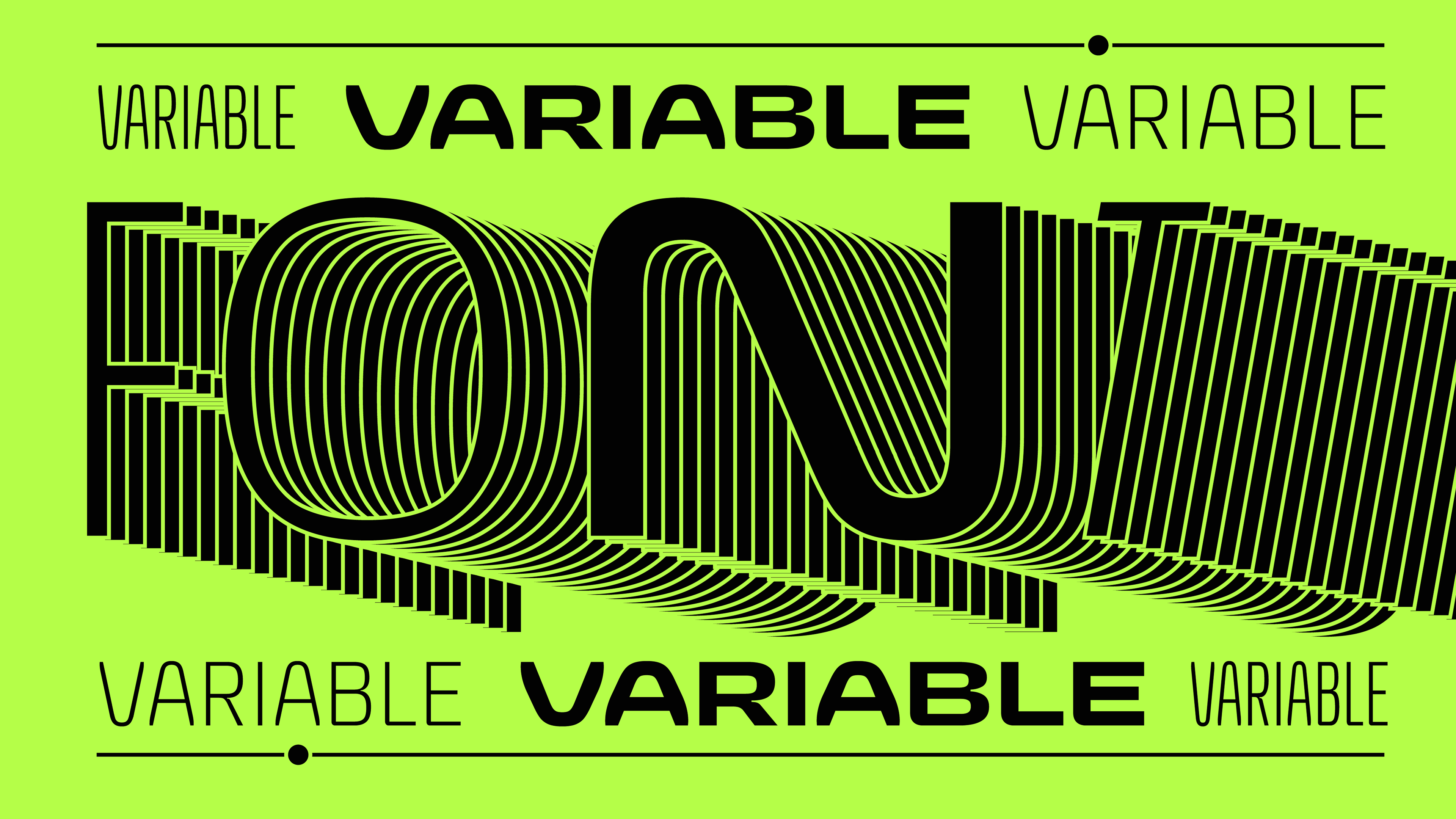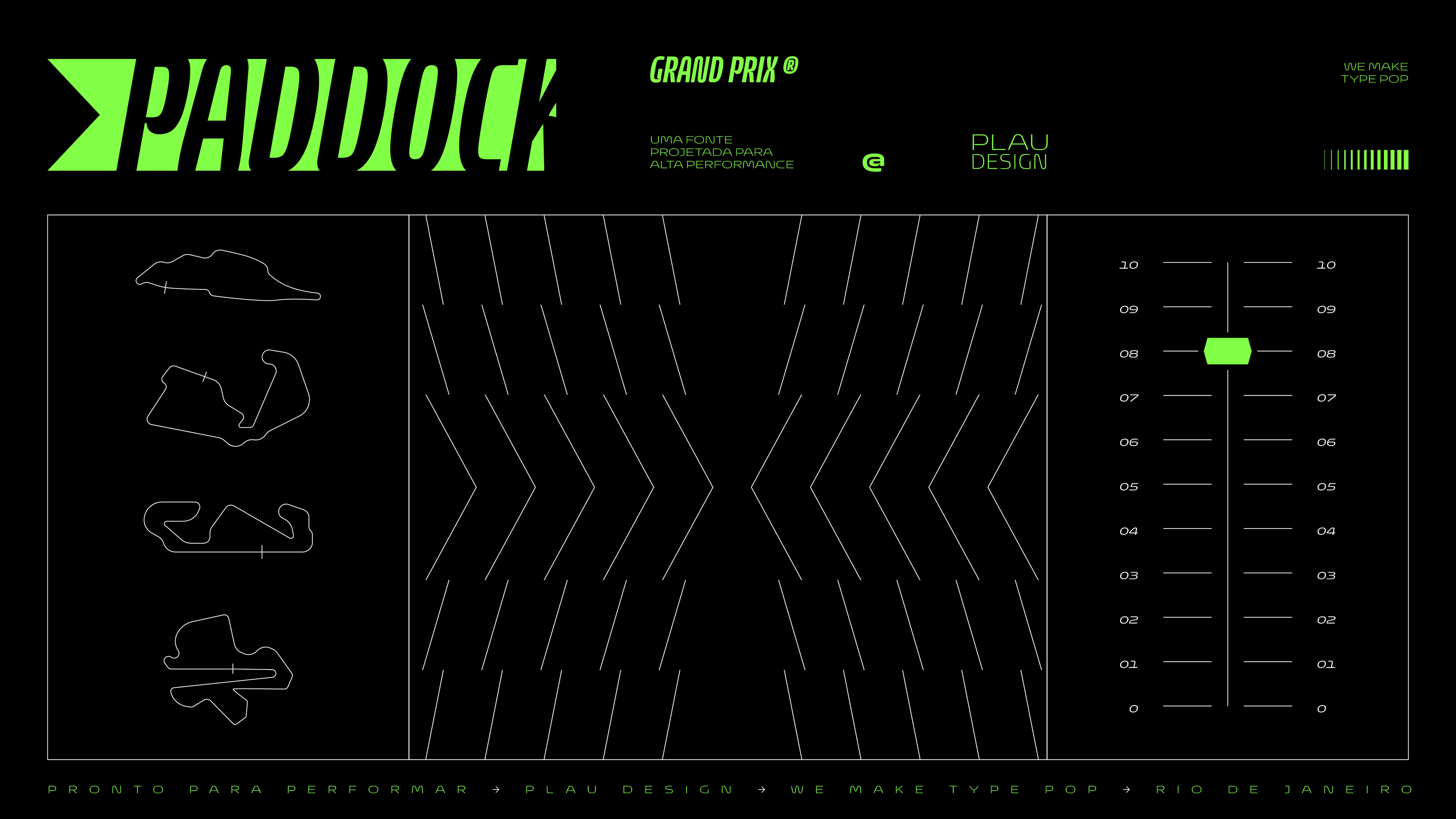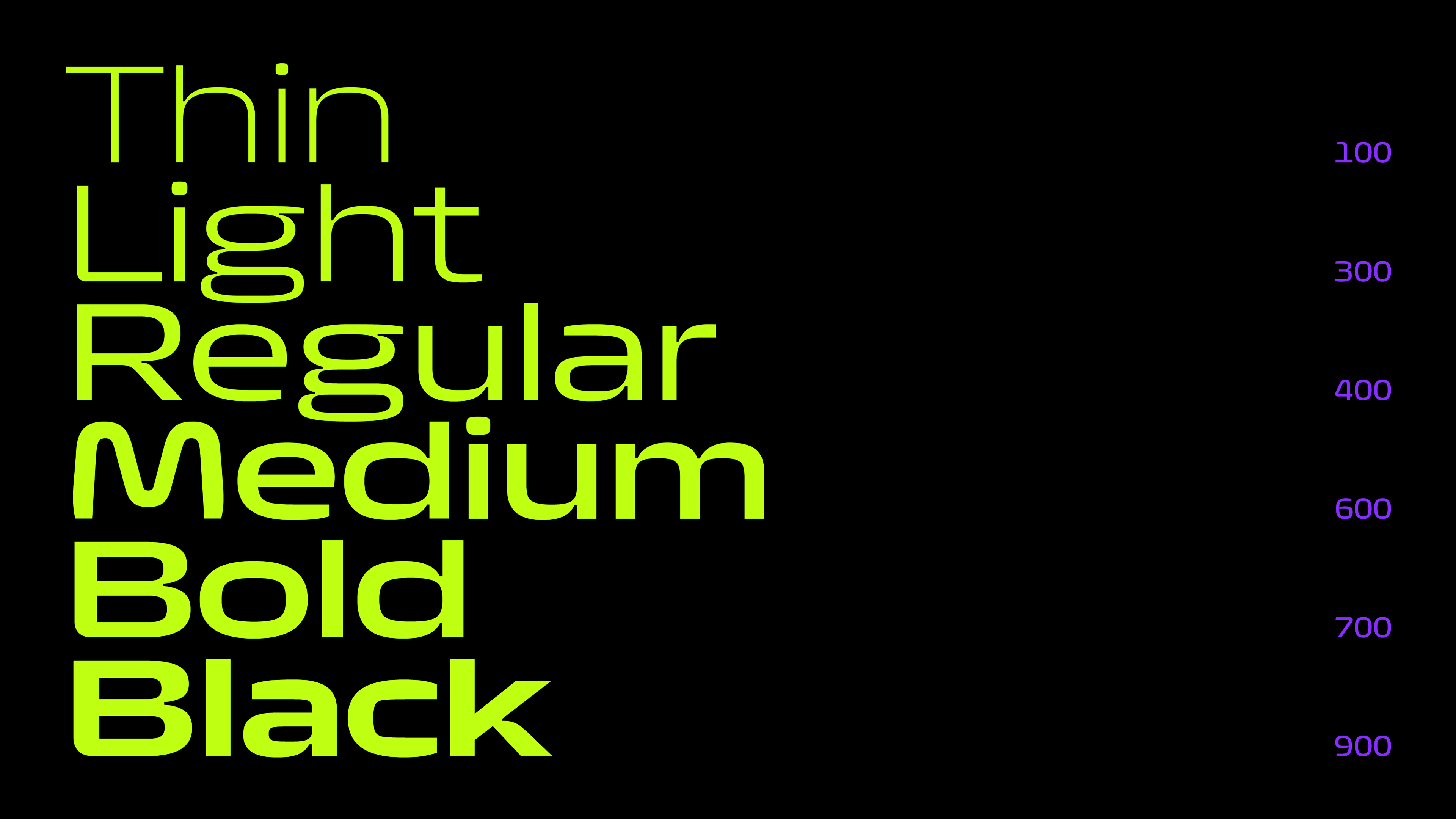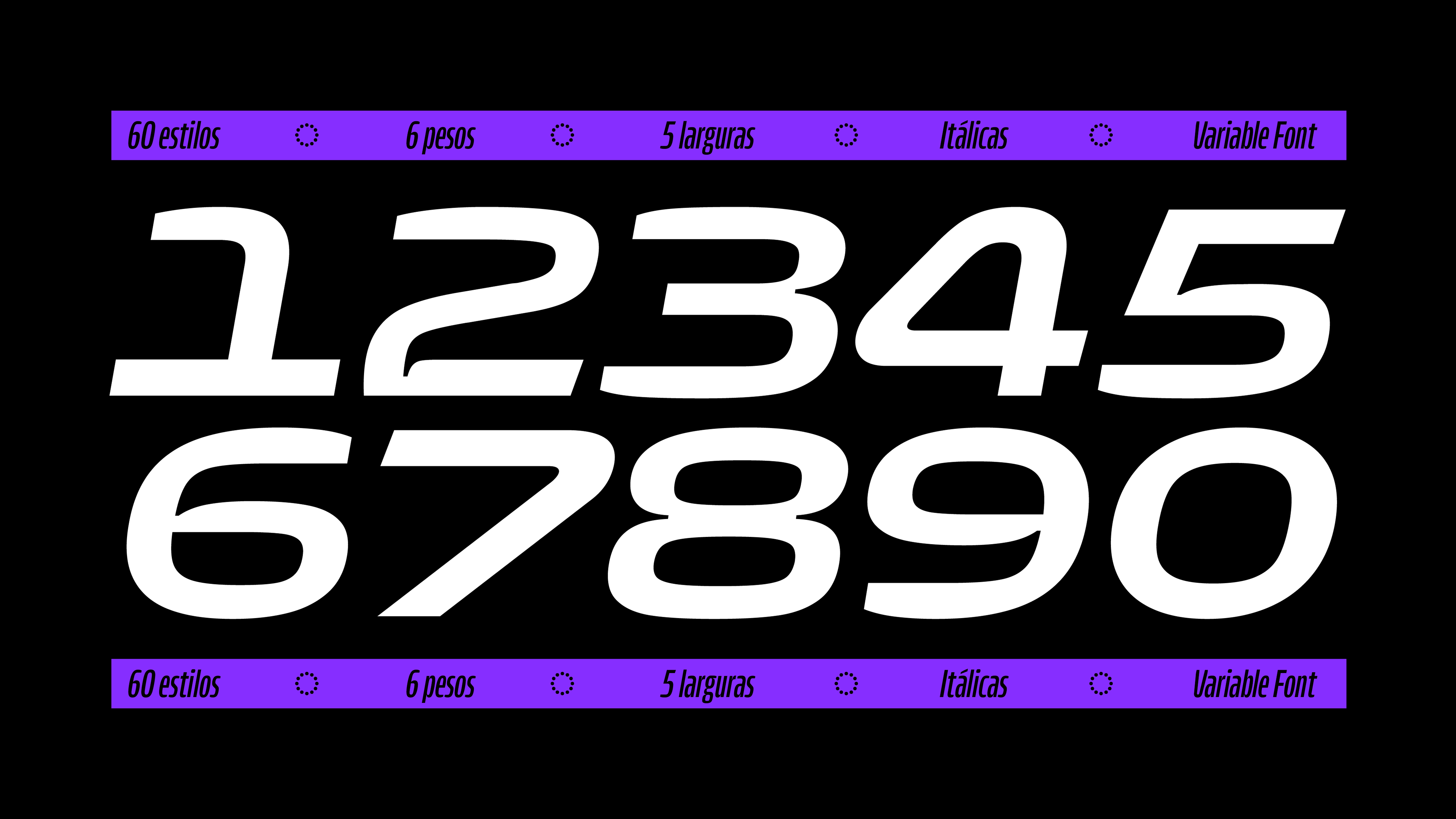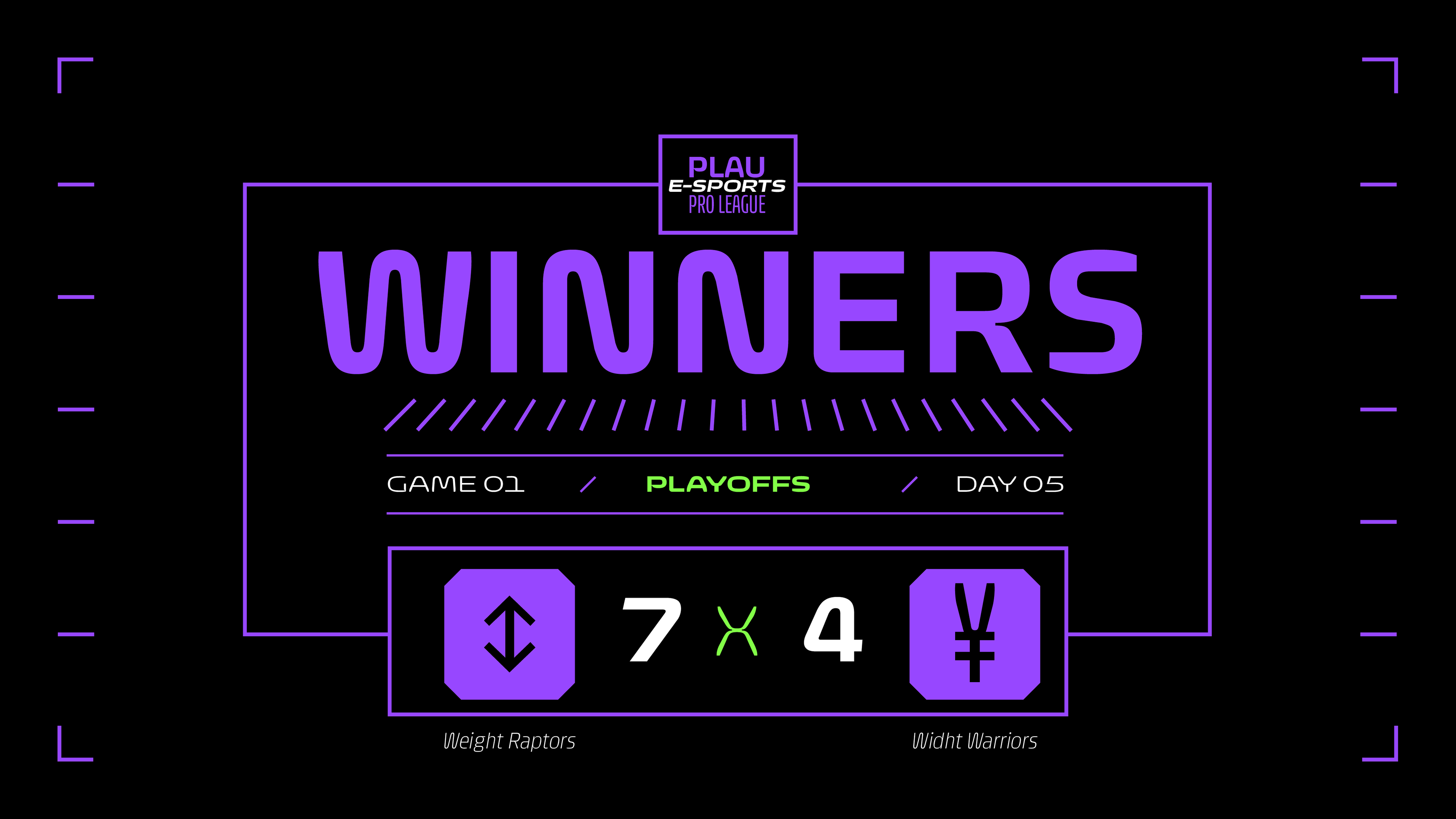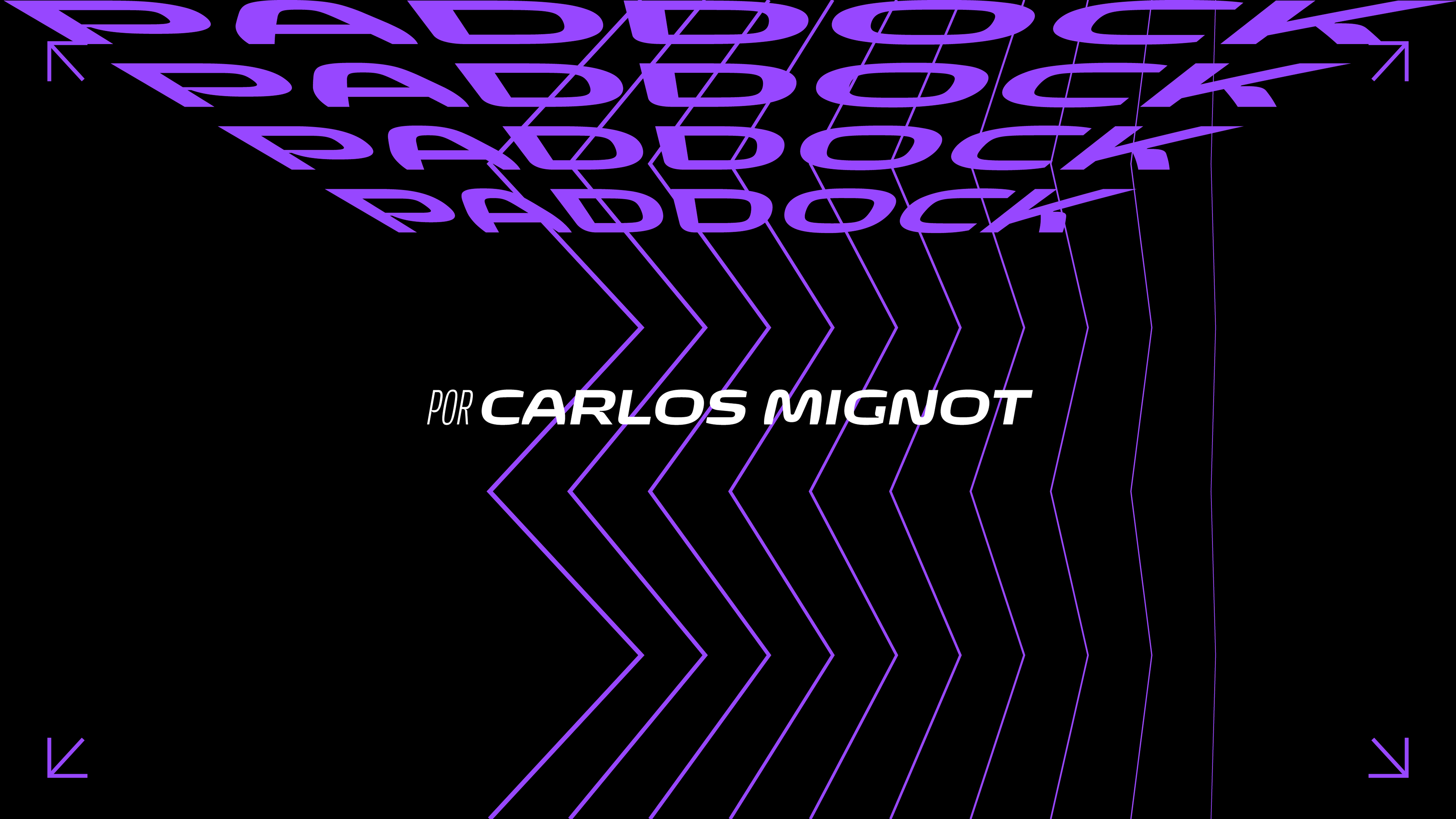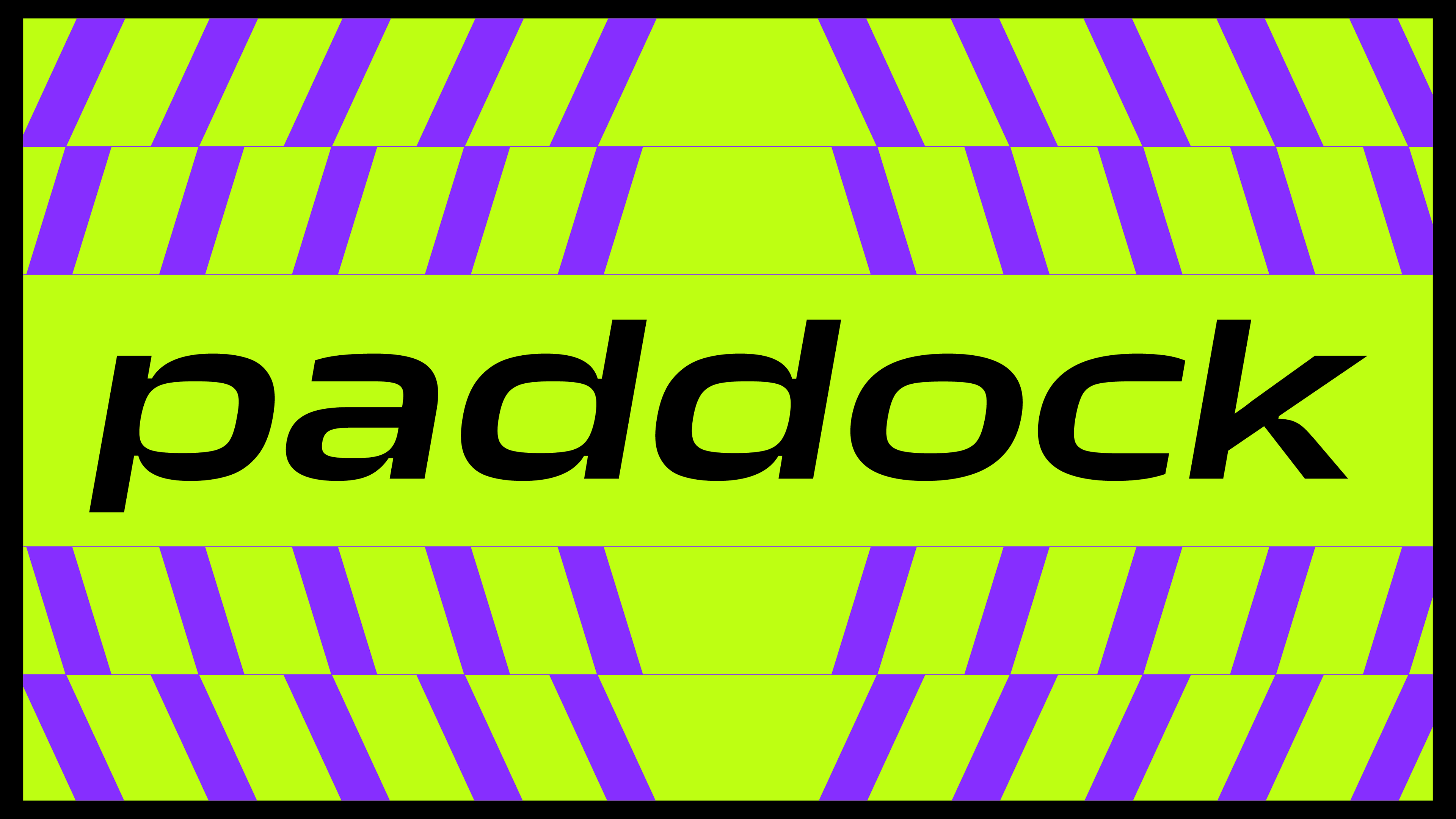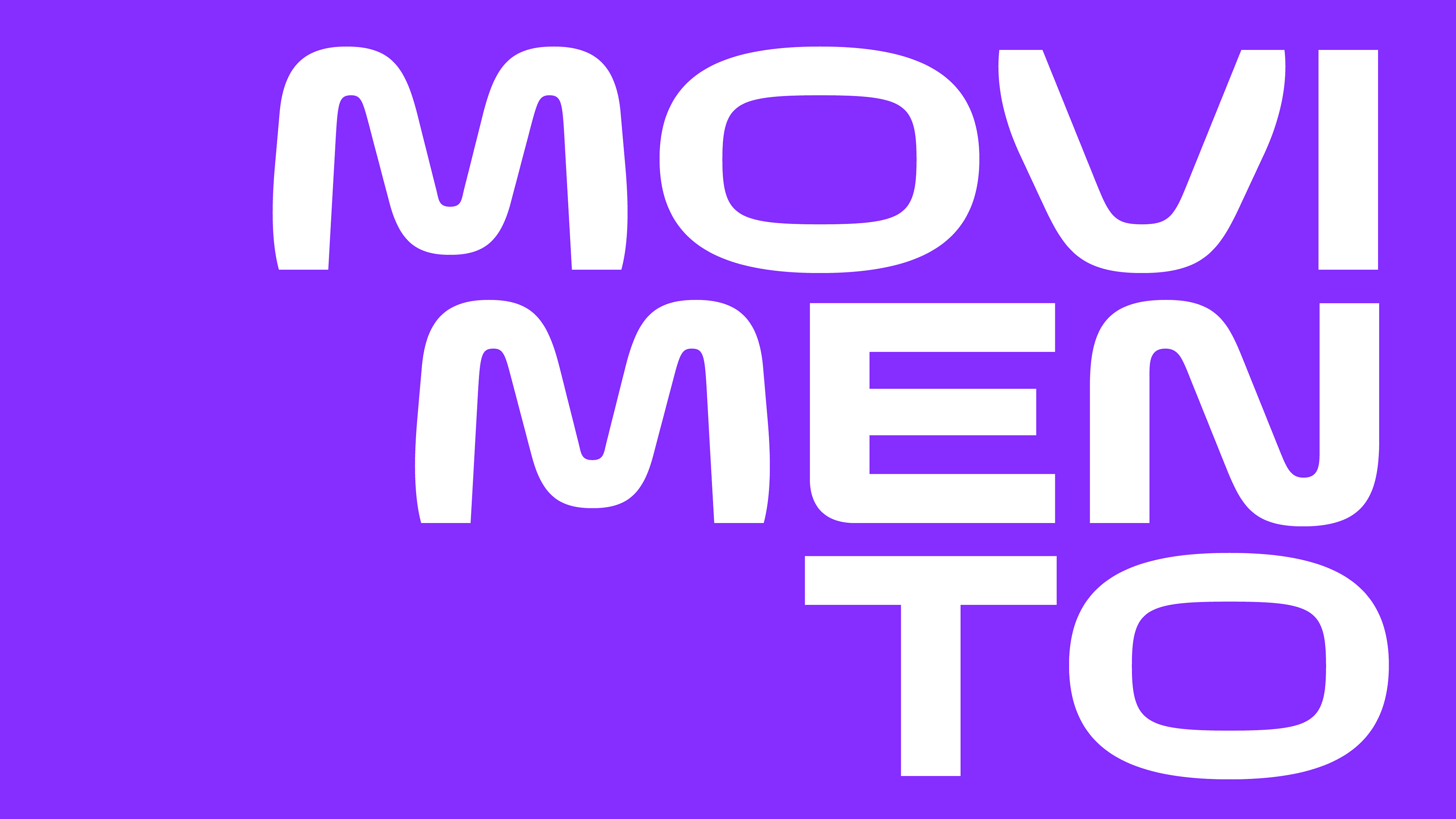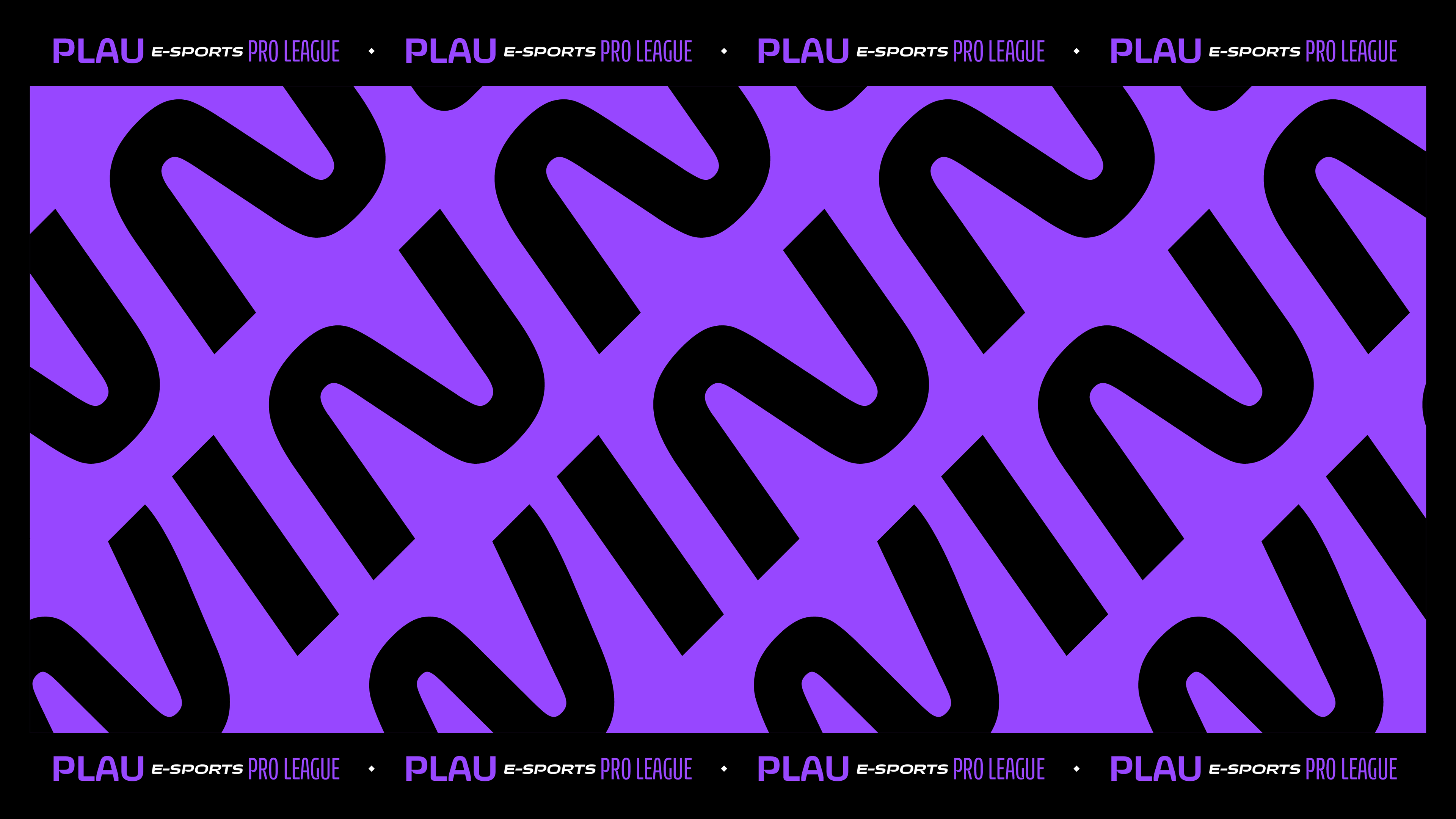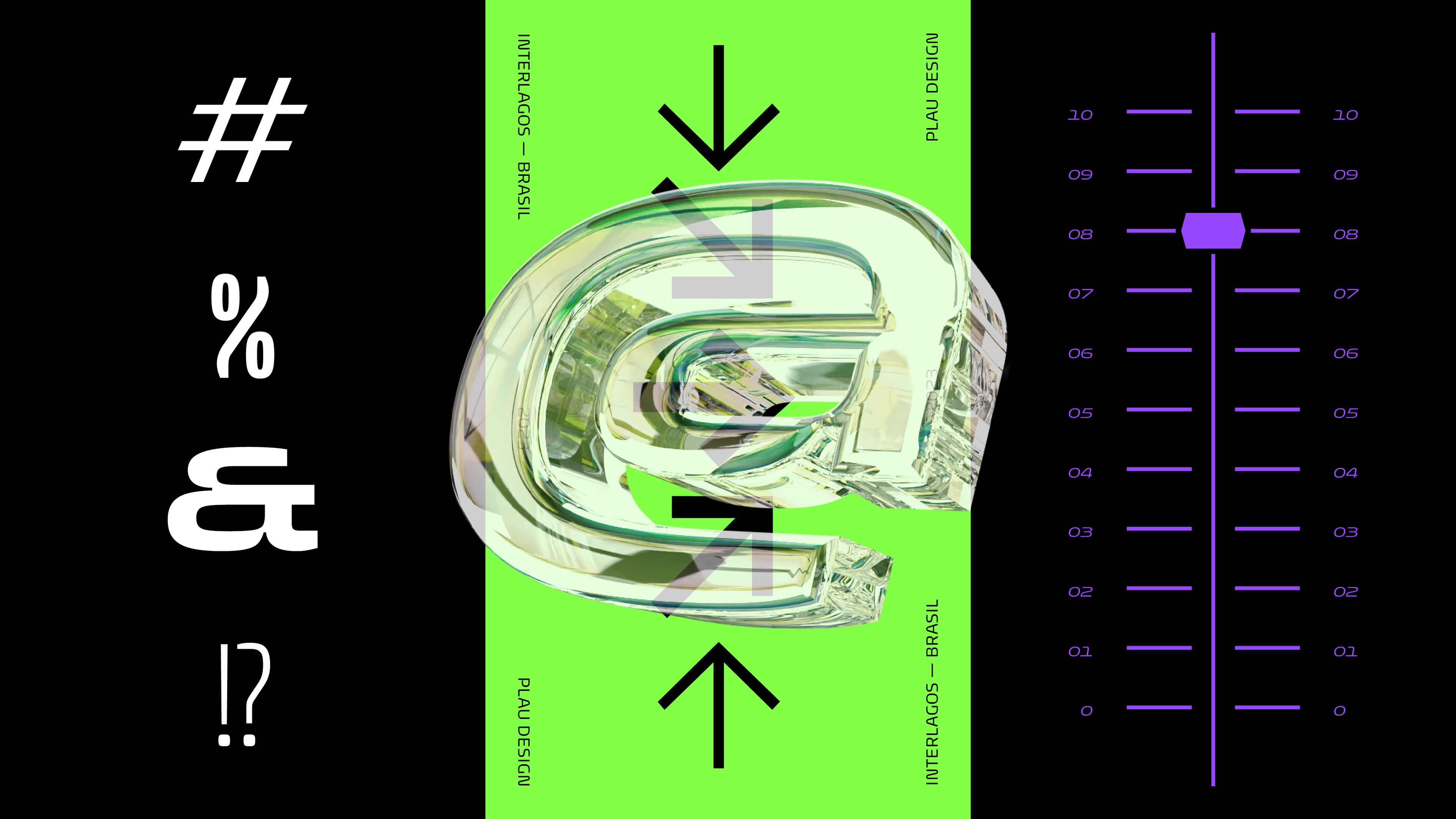
Inspired by the universe of high performance, Paddock was designed by Carlos Mignot to break the limits of your design and deliver more impact and movement to your projects.
The font counts with 60 styles, distributed across six weights, five widths and its italic versions. Full of sinuous curves, mechanical finishes and even a futuristic touch, Paddock is an ode to sports culture.